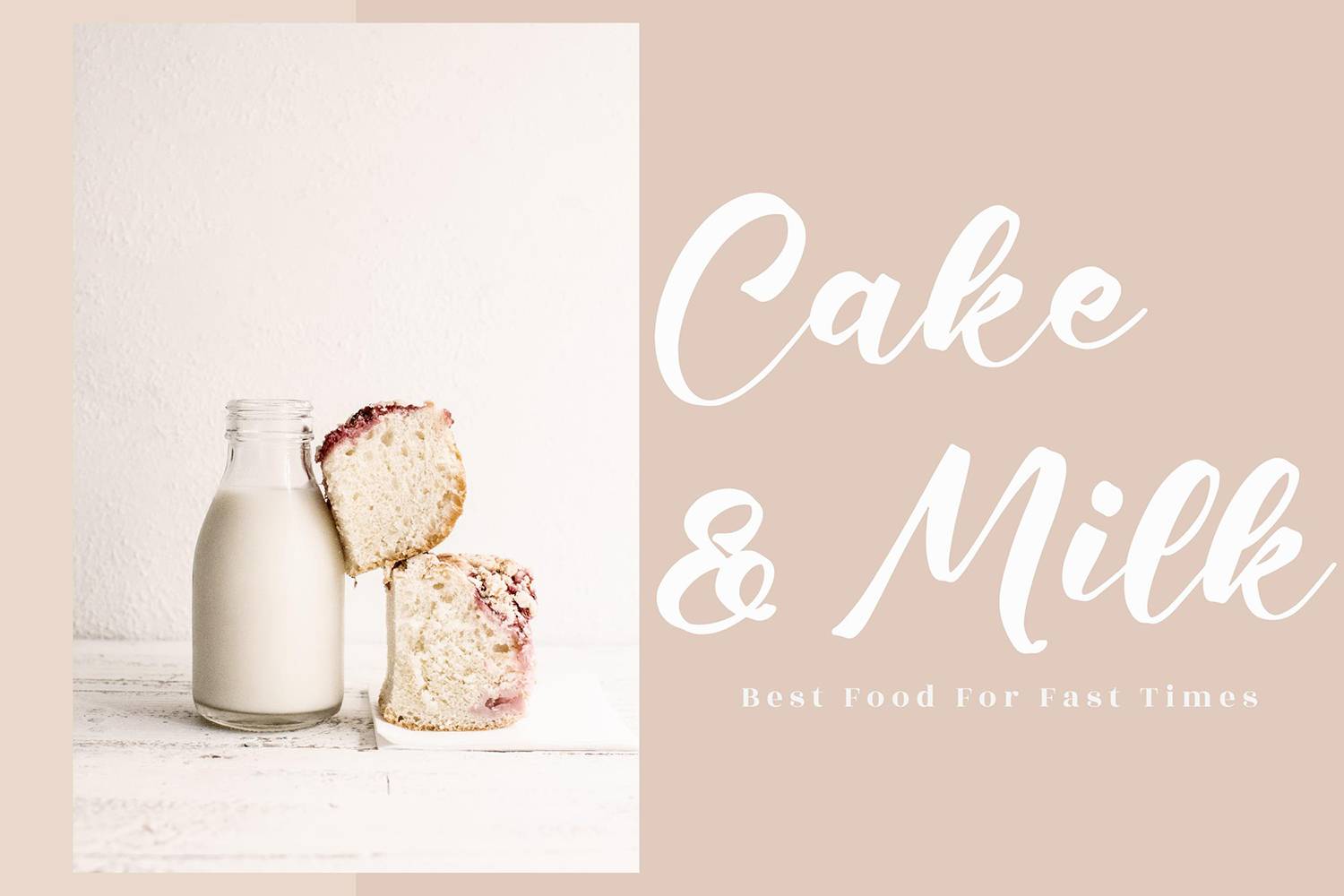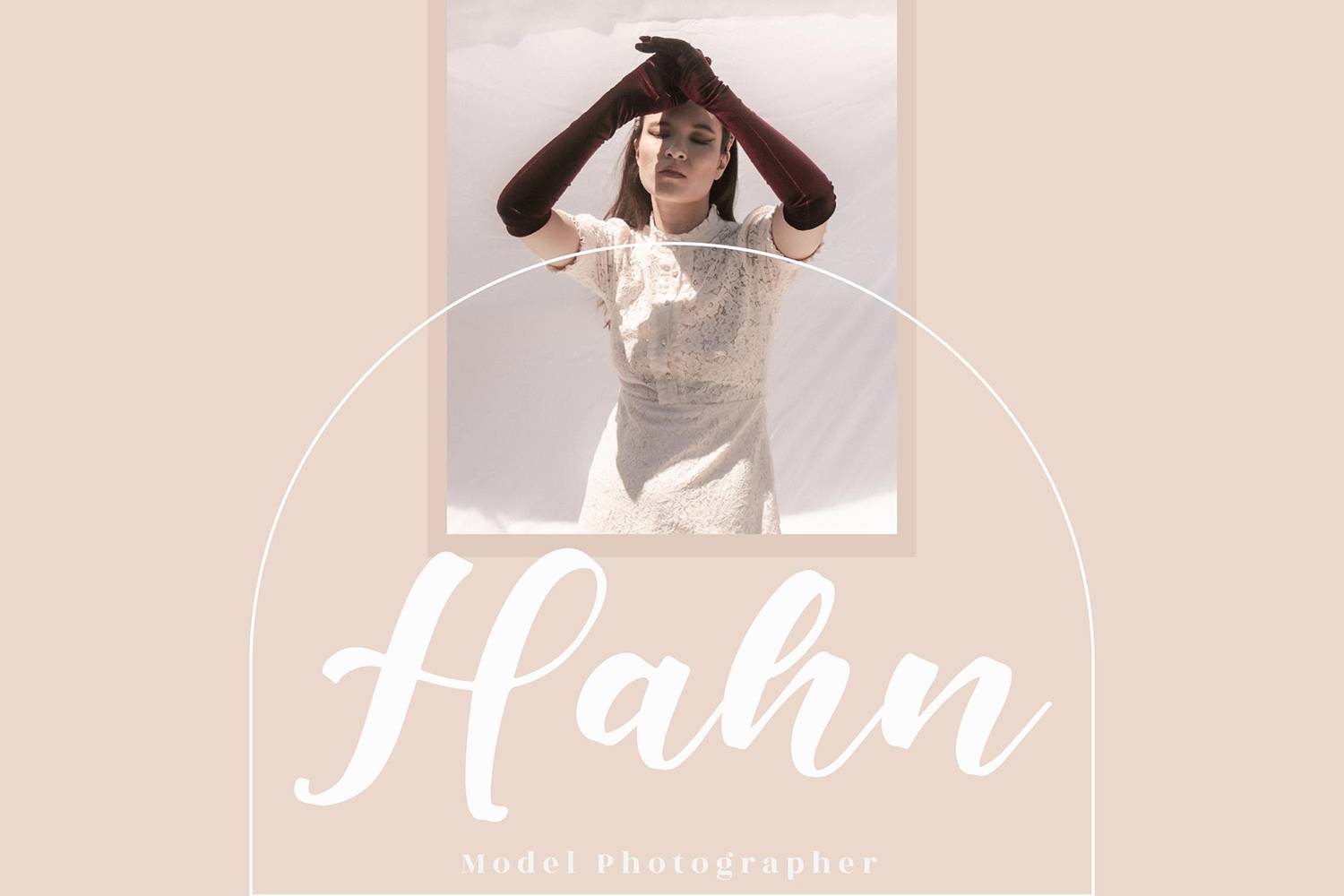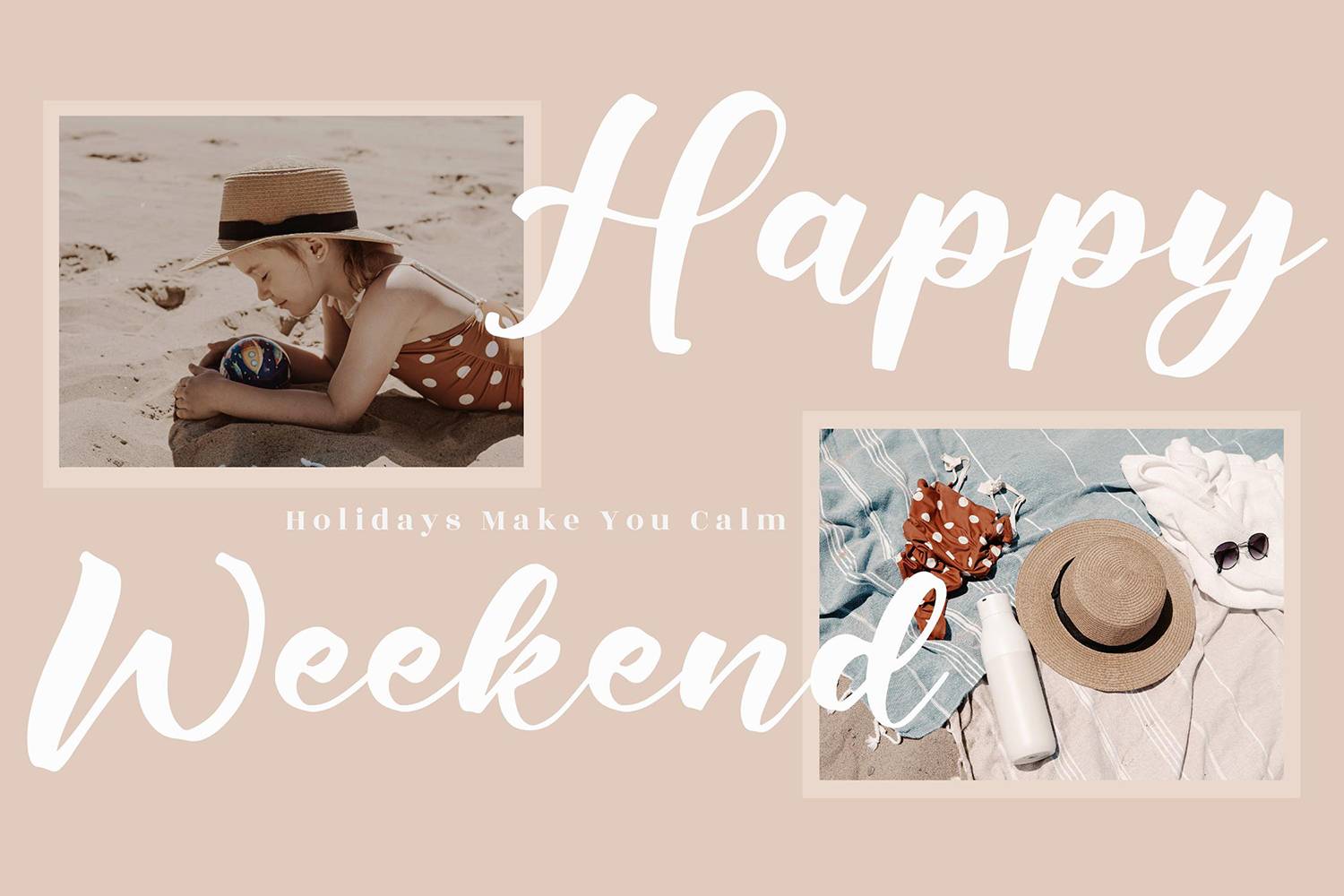
Calistelo Delisha is a stylish script font with a smooth, flowing design that combines elegance with a casual charm. Its moderate weight and lively, slightly condensed letterforms make it ideal for branding, invitations, and headlines where a friendly yet sophisticated touch is desired. This font excels in projects that seek to convey warmth and creativity, such as fashion logos, personal blogs, and creative editorial work.
Calistelo Delisha Font
About Calistelo Delisha Font